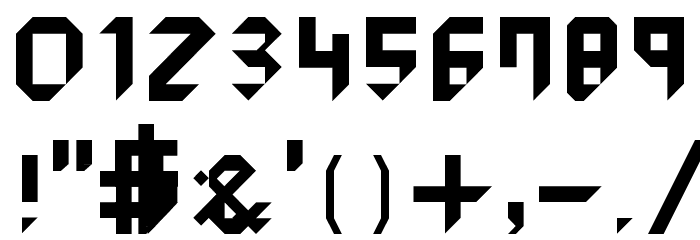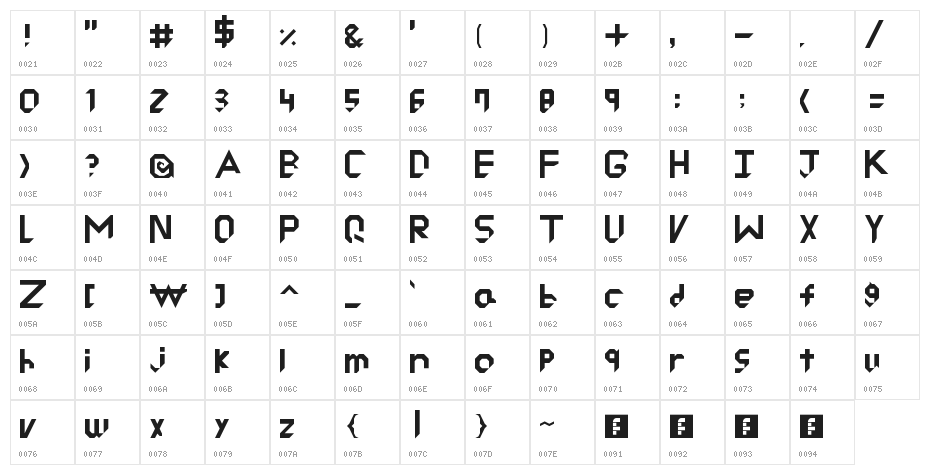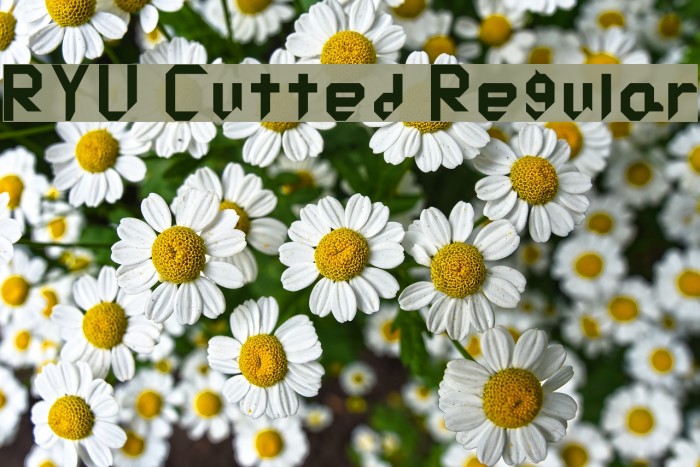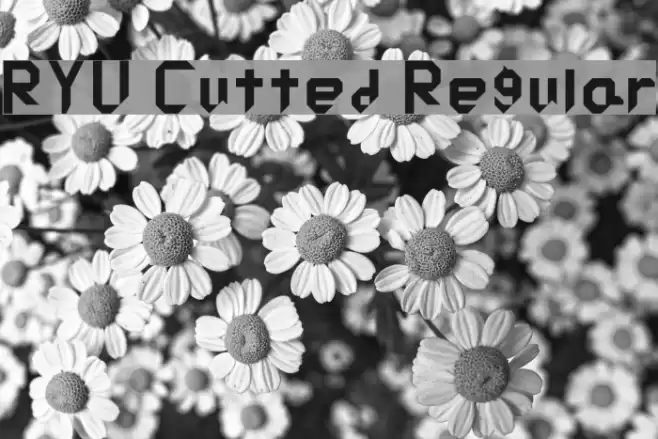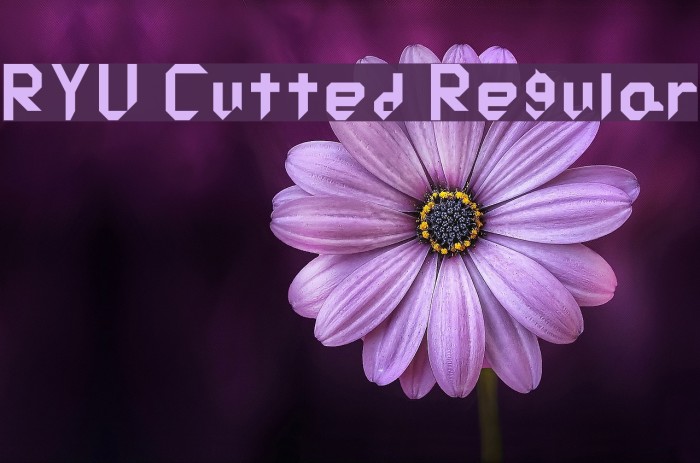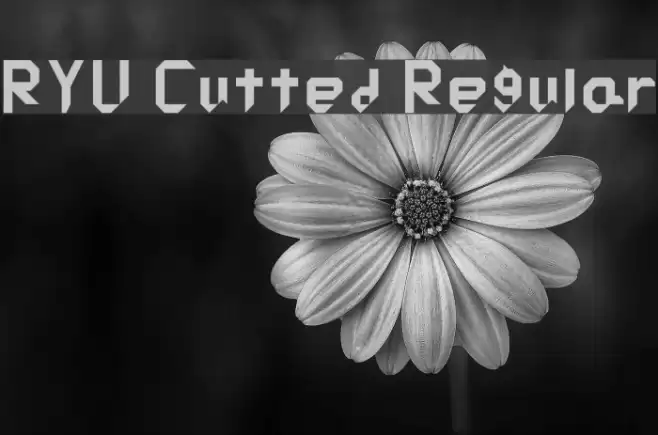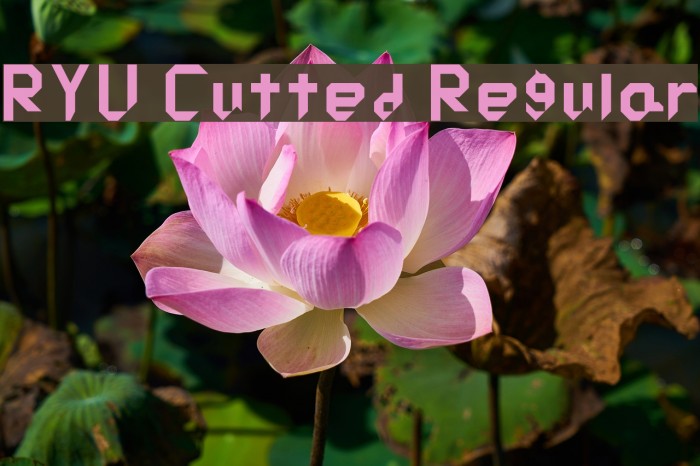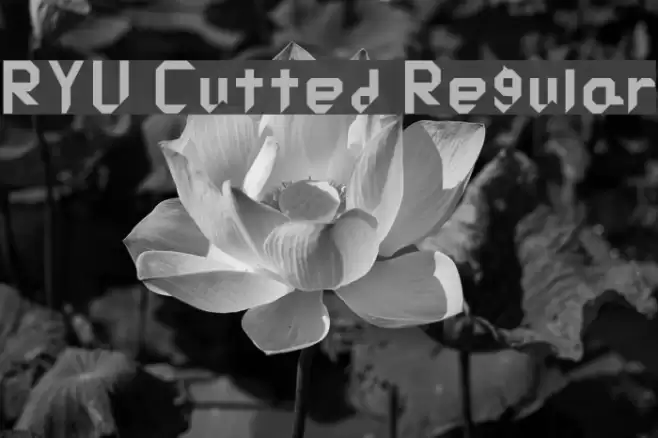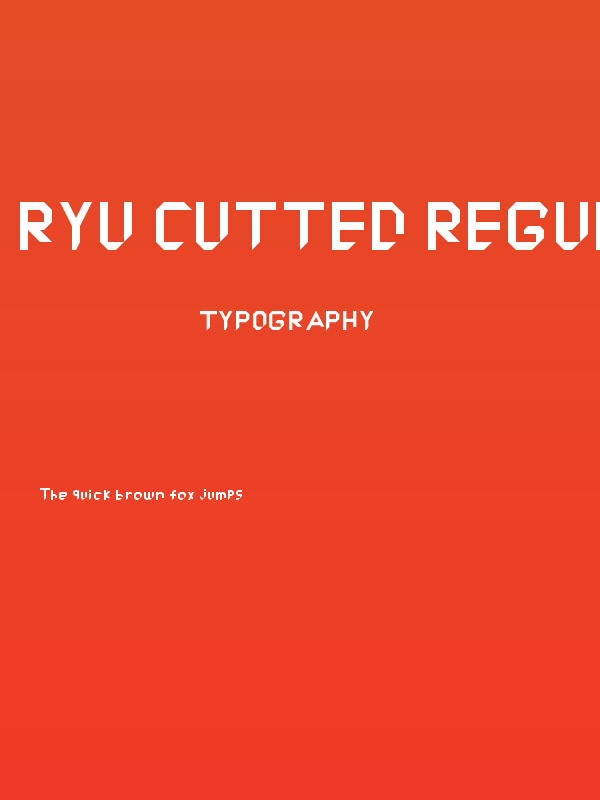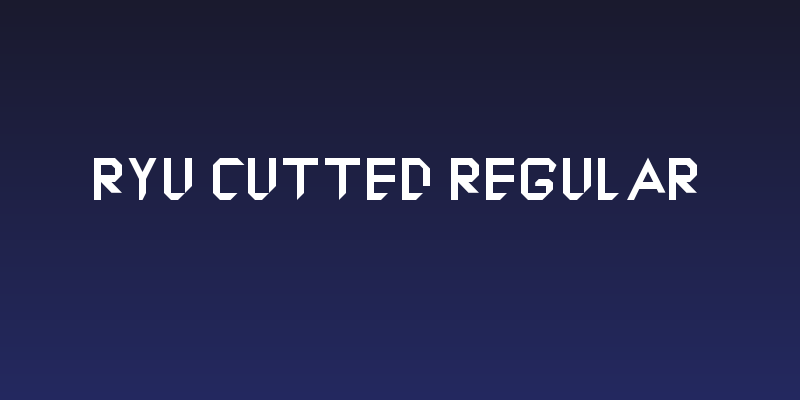
RYU Cutted Regular Font
RYU Cutted Regular Description
This font features a bold, geometric design with sharp angles and cut-out sections, creating a distinctive and modern appearance. The uppercase and lowercase letters maintain a consistent style, with each character exhibiting a unique angular cut that adds to the overall edgy aesthetic. The numerals and special characters follow the same design principles, ensuring uniformity across all glyphs. This font's boldness and unique style make it stand out, while its geometric nature provides a sense of structure and order.